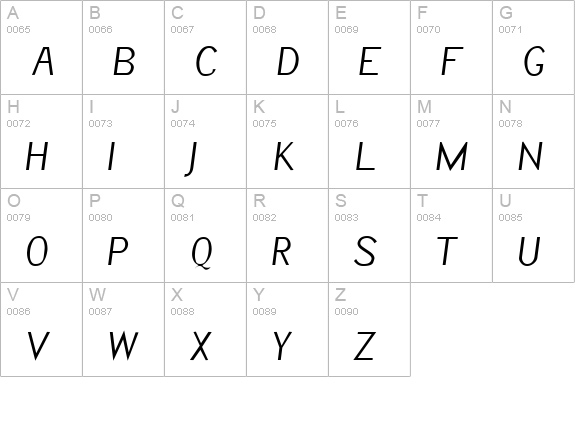
Informal Italic Font Details
Informal Italic is a distinctive, italic variant in the Informal typeface family \xE2\x80\x94 well suited to design and typography projects.
Introducing Informal Italic, a font that effortlessly blends elegance with a touch of informality. This unique typeface captures the essence of casual yet stylish handwriting, making it perfect for any design project that requires a personal and relaxed touch. With its slanted letters and gentle curves, Informal Italic adds a subtle flair to any text. Whether you're creating invitations, greeting cards, or even social media graphics, this font will effortlessly elevate your designs and leave a lasting impression. What makes Informal Italic even more appealing is that it is available for free download at FontsMarket.com. Yes, you read that right – this stunning font can be yours without spending a penny. FontsMarket.com offers an extensive collection of high-quality fonts, and Informal Italic is no exception. By freely downloading Informal Italic, you unlock a world of creative possibilities. Its versatility allows you to use it in various contexts, from personal projects to professional presentations. The elegant yet informal nature of this font ensures that it will stand out in any setting, making your designs truly remarkable. Whether you're a seasoned designer or just starting out, Informal Italic is a font that will undoubtedly become a valuable addition to your toolkit. Its effortless charm and versatility make it a go-to choice for any project, making your work shine with a touch of sophistication. So why wait? Head over to FontsMarket.com and download Informal Italic today. Join the countless designers who have already discovered the beauty and versatility of this font. With its free availability, there's no reason not to add Informal Italic to your font collection and elevate your designs to new heights.